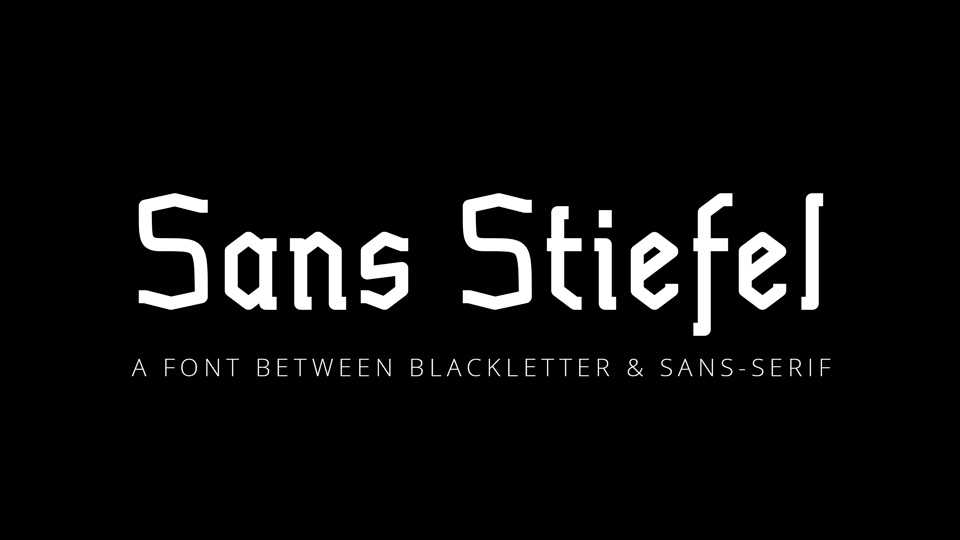
Download Sans Stiefel font, an experimetal typeface somewhere between blackletter and sans serif, Fraktur and Grotesque with OpenType features.
Designer: Gerrit Ansmann